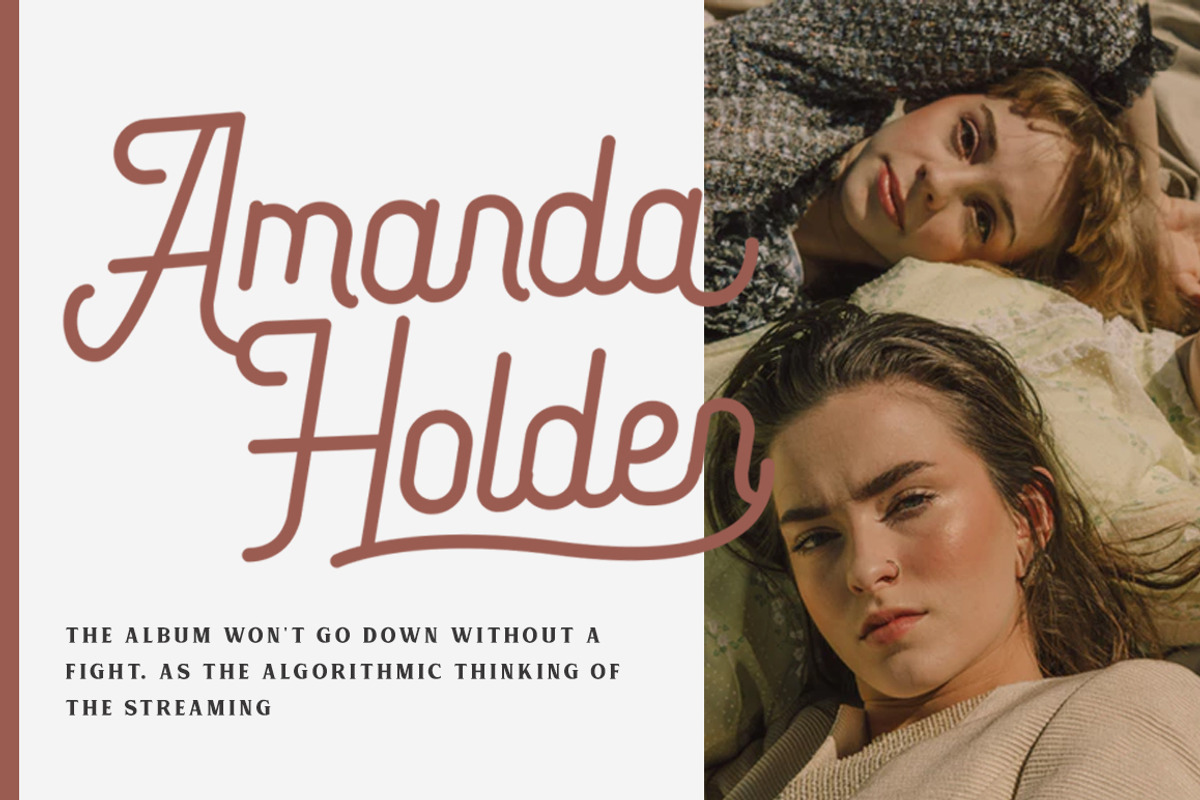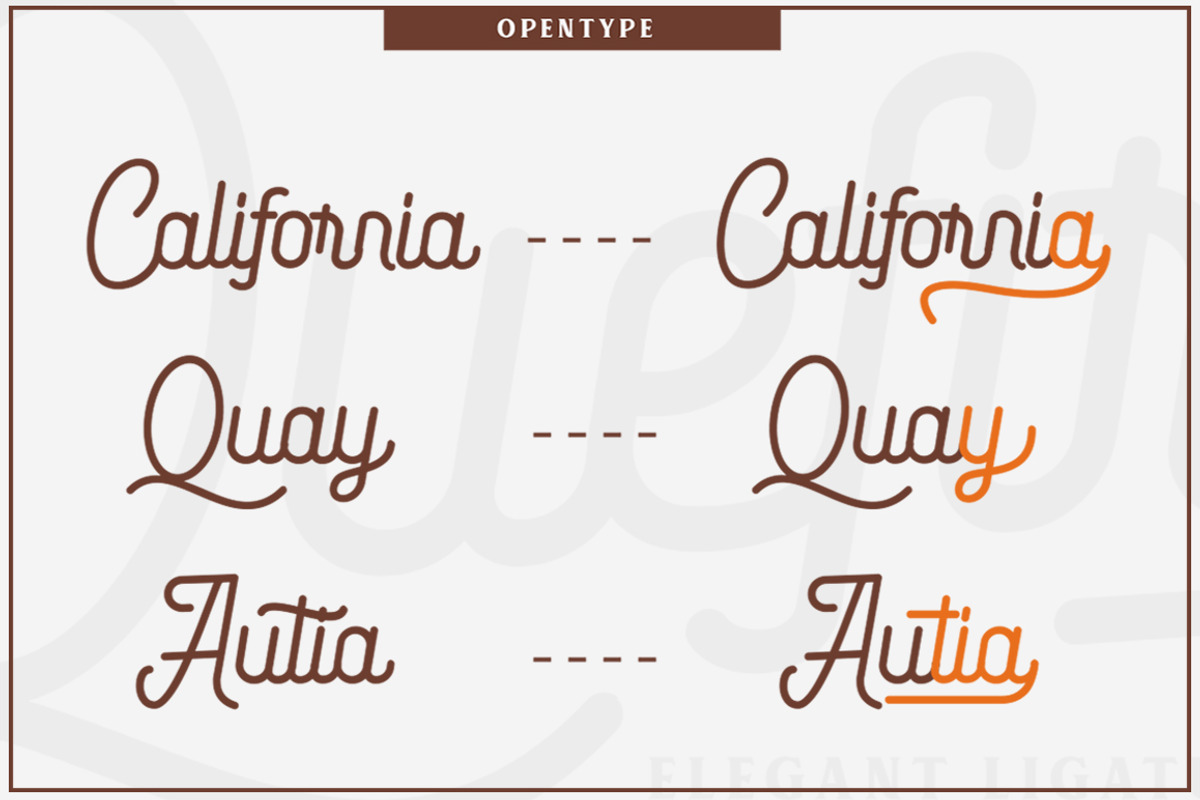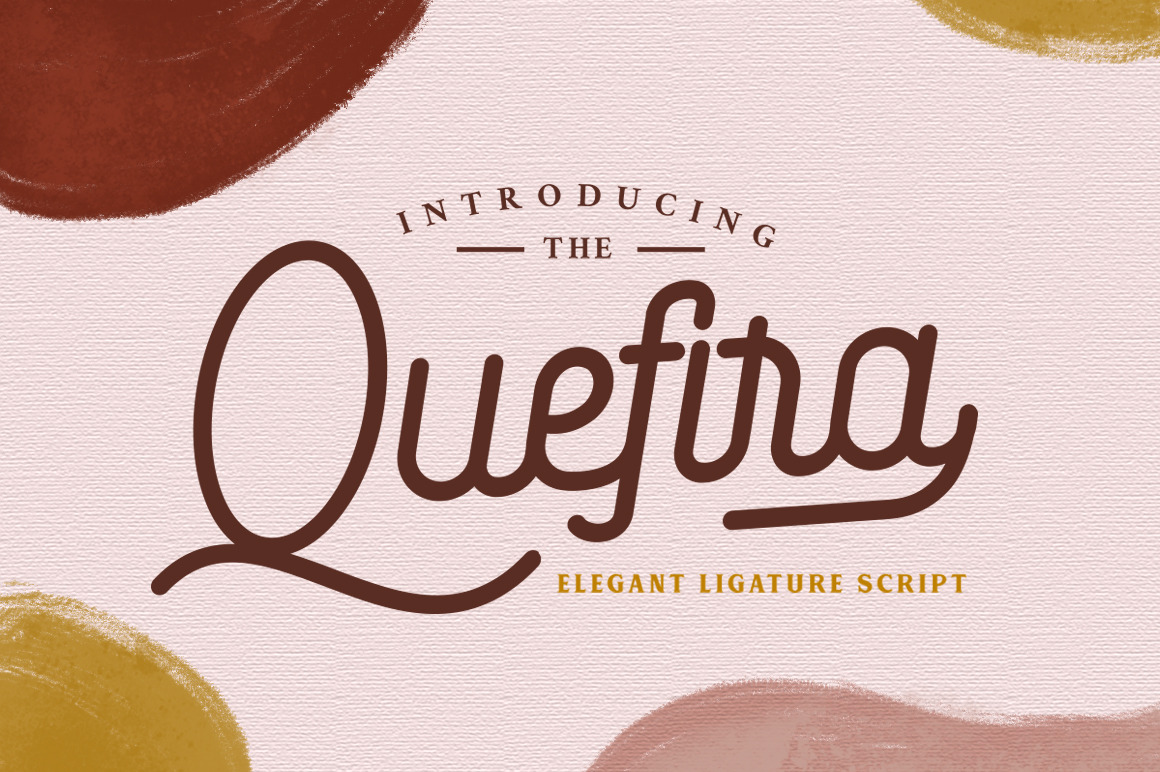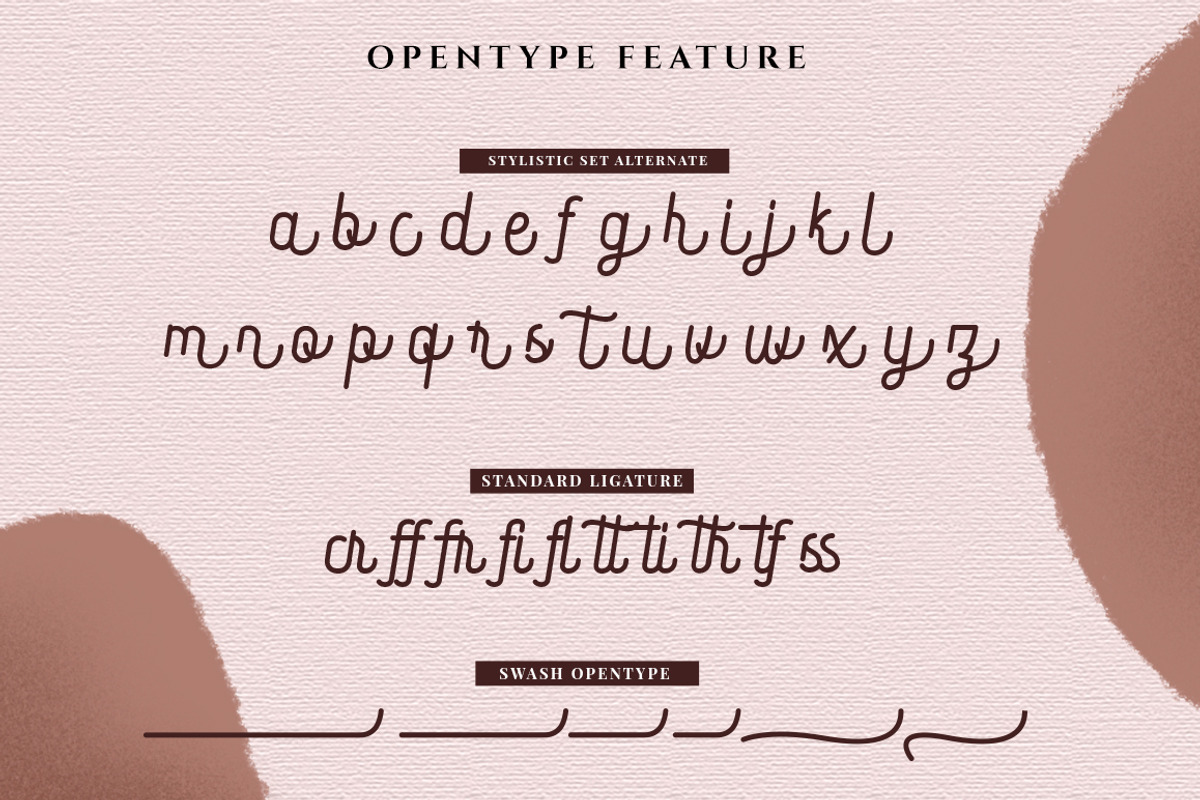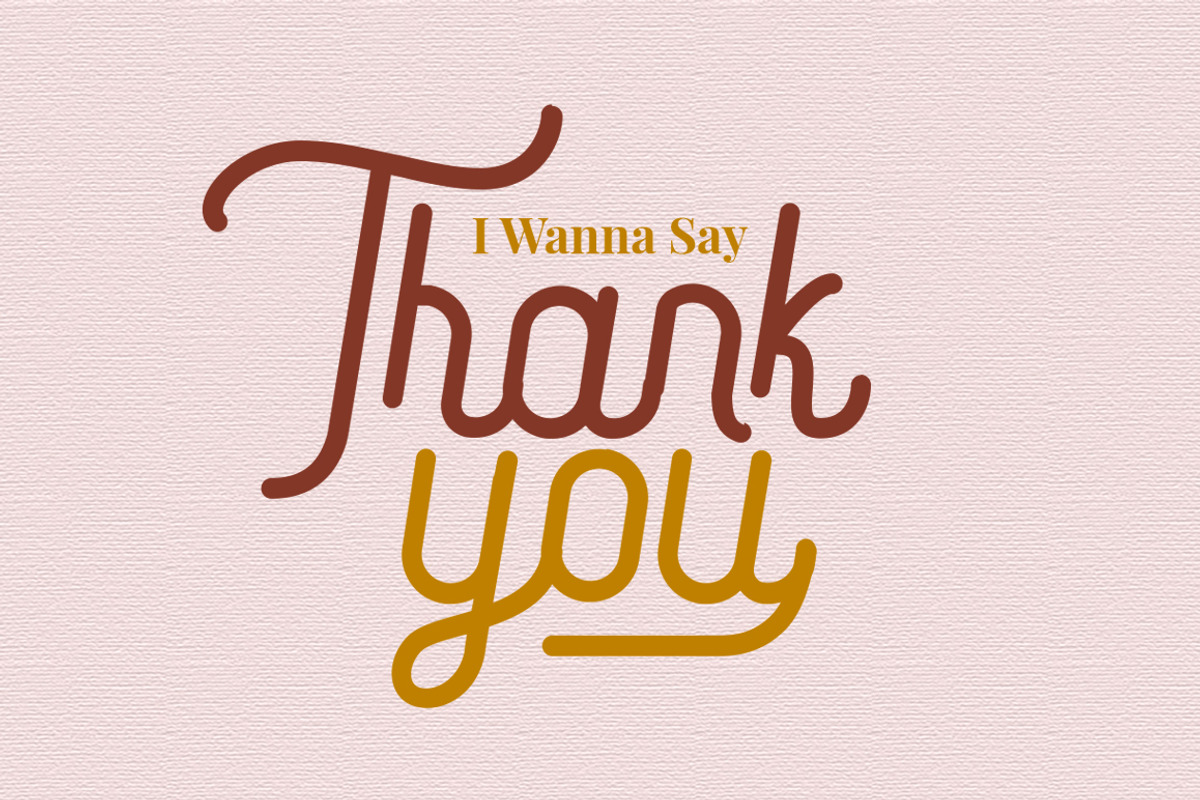
Quefira // Aesthetic Script Font
Quefira Script is clean and minimalistic script with beautiful ligature and alternate font. It also works wonderfully on its own for logos, quotes, and more!
All characters have an imperfect shape that gives a natural look in design. It easily cooperating together and perfect for creating the traditional style logos, labels, package design, lettering for t-shirts and much others.
Multilingual support It also includes a clean version without texture. OpenType features (ligatures and alternates) helps to make your lettering more interesting. Also there is swashes alternate
This font has a vintage feel with styles stamp on each letter. great for Logotype, Branding Design, Vintage Logo Design, Digital Lettering Arts, Retro,brush font, script font, bold script, Vintage lettering, and any vintage design needs.